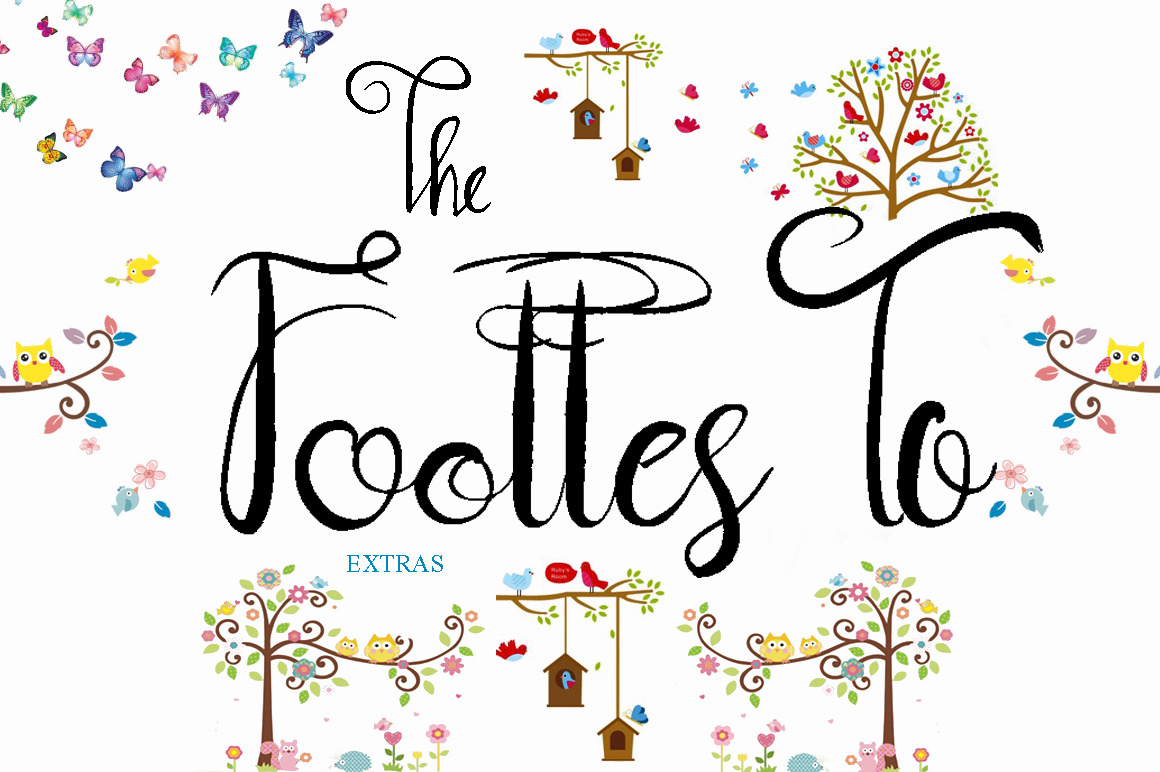
Footes To Script Font
Welcome to sweet , lovely Footes To Script Font ;
In addition, the construction of logo,
you can use any case you want to sign in and print.
Font typography in a consistent fashion.
You can create your logo, your own brand.
You want an invitation letter for special occasions can be seen perfectly.
As stated in the presentation of a beautiful cover of the book cover can be created.
When opening your new sign in a café,
a shop opening modification you want to make your beautiful handwriting appealing to
the eye lid on the product you want to promote.